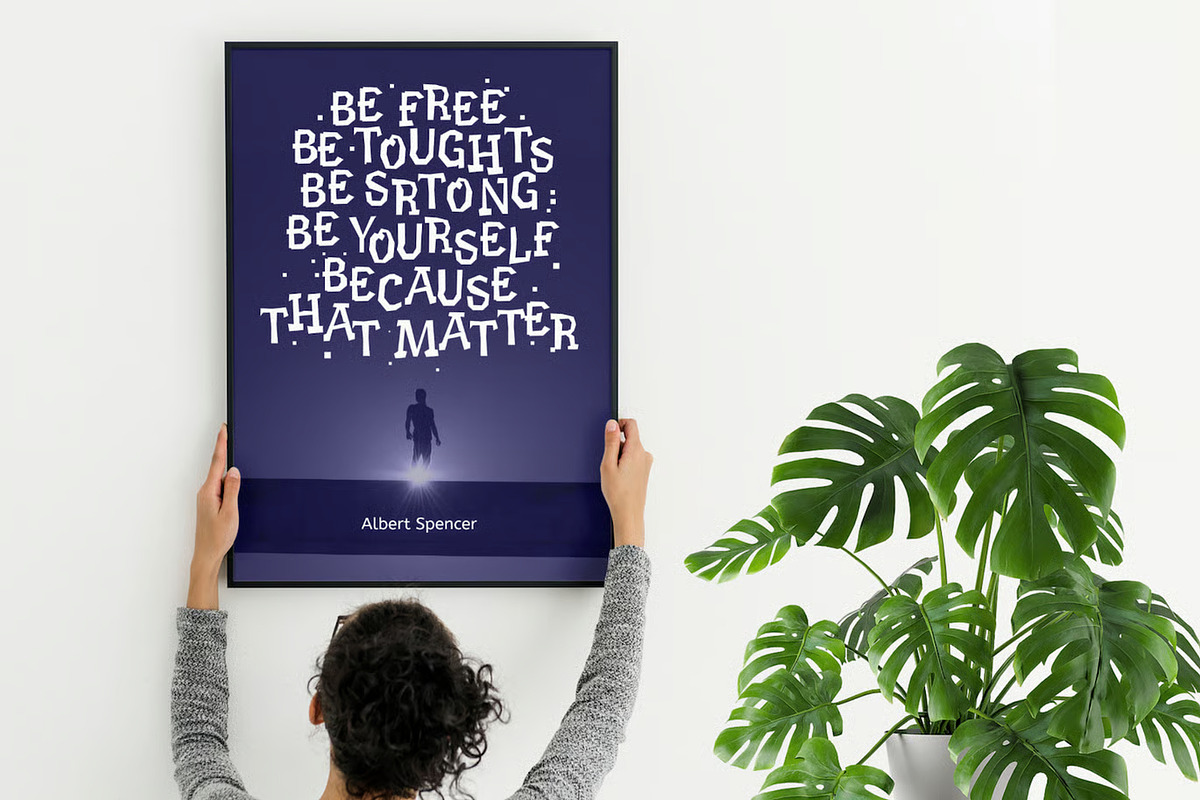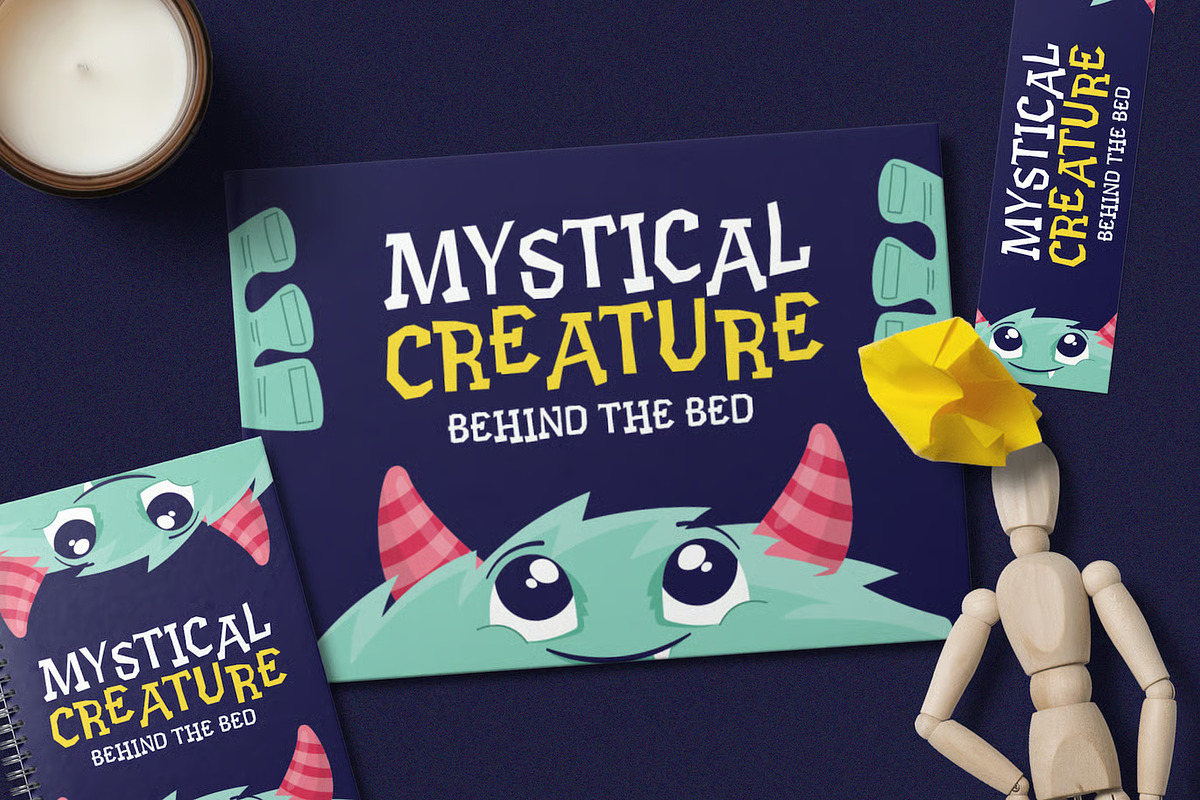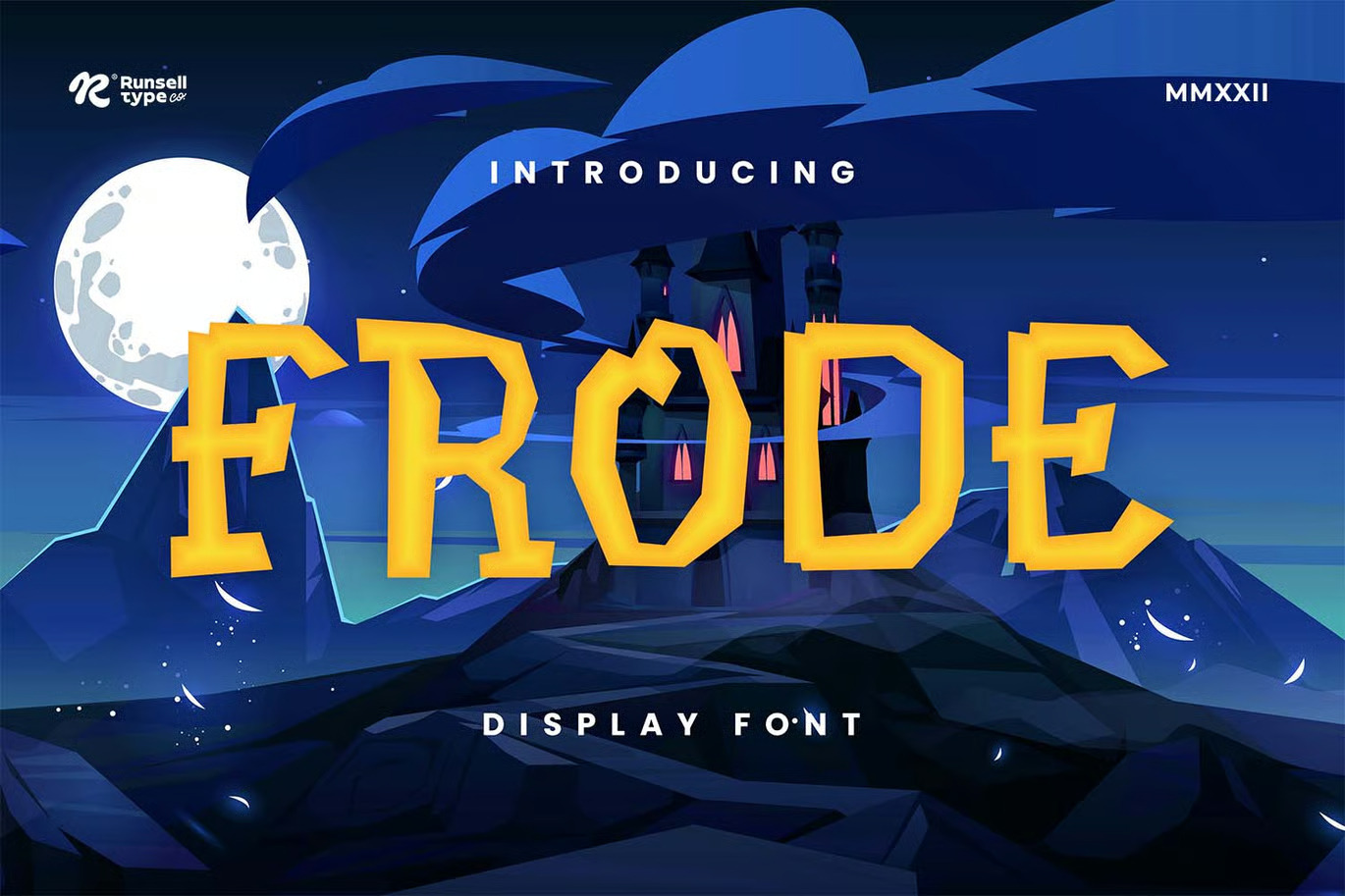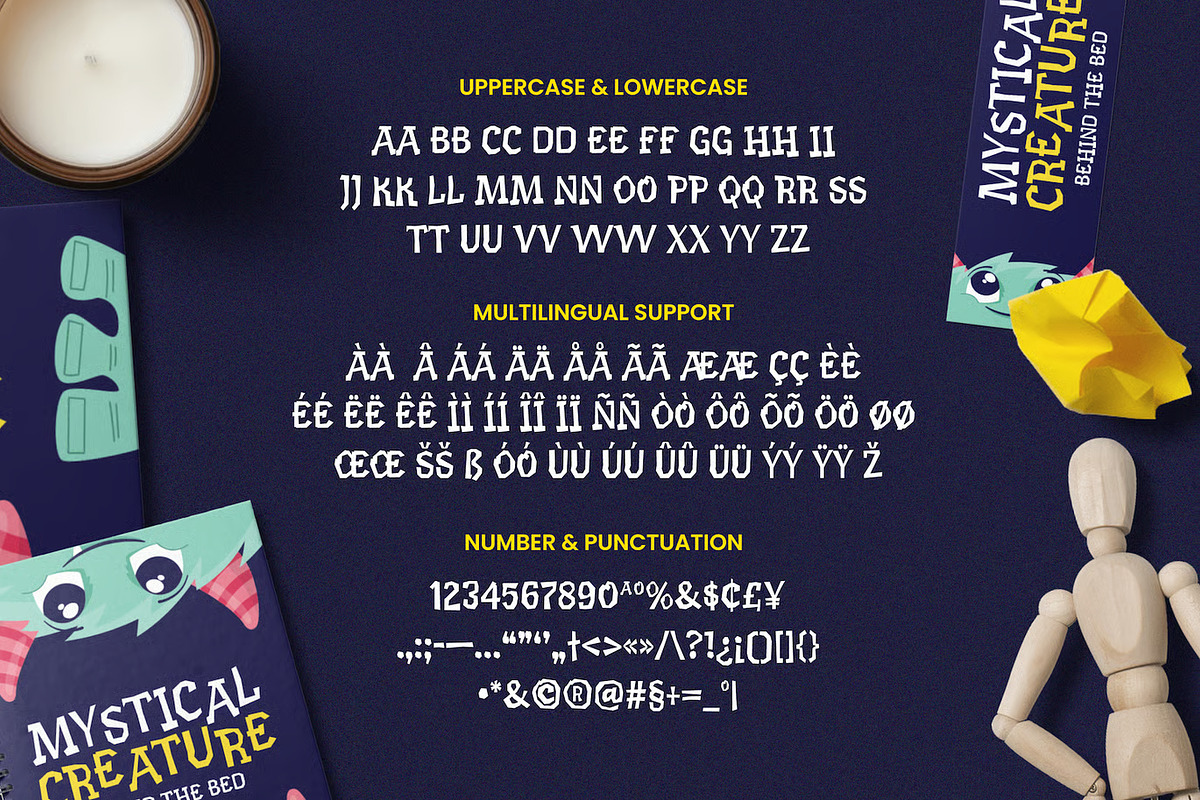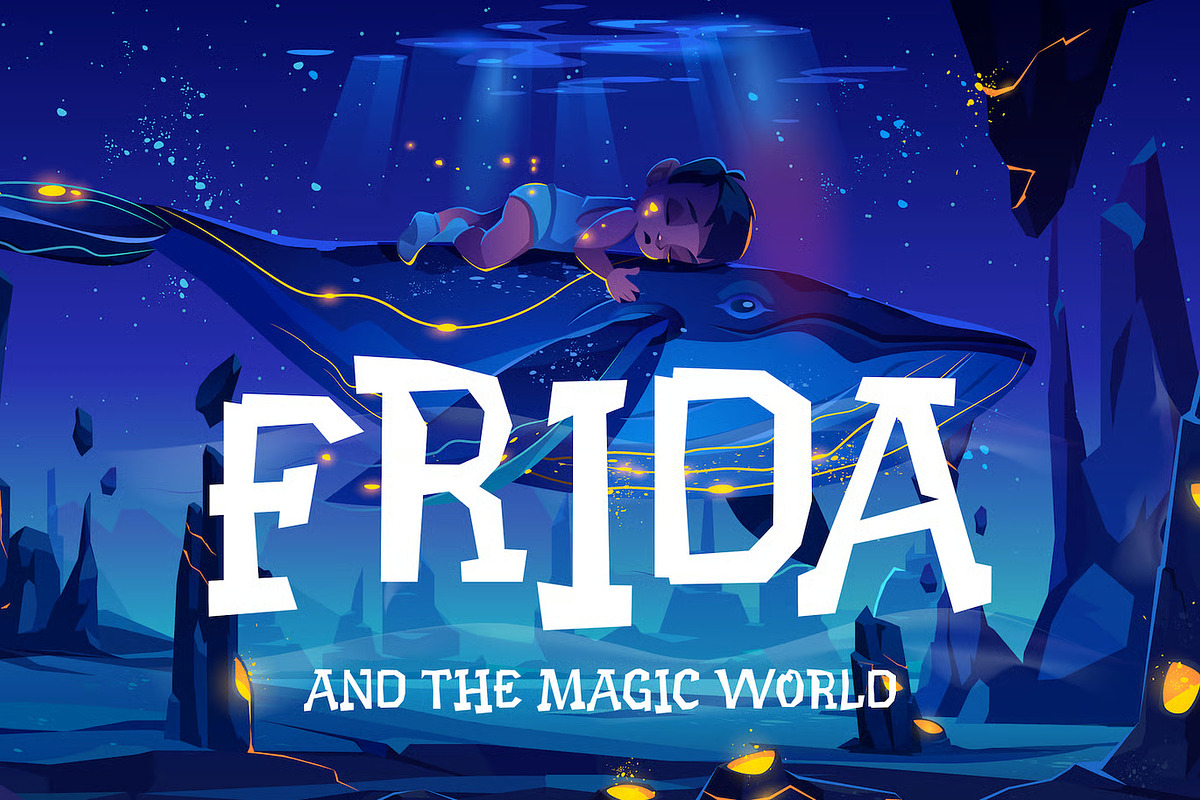
Frode Halloween Font
Frode Halloween Font is a deliciously bold display font crafted for brands that live in the world of flavor. Its curvy, full-bodied letterforms blend retro charm with modern versatility—perfect for creating a standout logo for your coffee shop, bakery, café, or restaurant. Every stroke feels hand-made and appetizing, evoking the warmth of a kitchen and the creativity of a chef plating their signature dish.
From burger menus and pizza boxes to candy, ice, or chocolate packaging, Fodhies adds a taste of personality to every brand identity. It’s the perfect ingredient for cooking up irresistible visuals—whether for digital branding or printed menu design. Fodhies isn’t just a typeface; it’s the secret recipe for brands that want to look as good as they taste.
Cooked with Creativity, Served with Style.